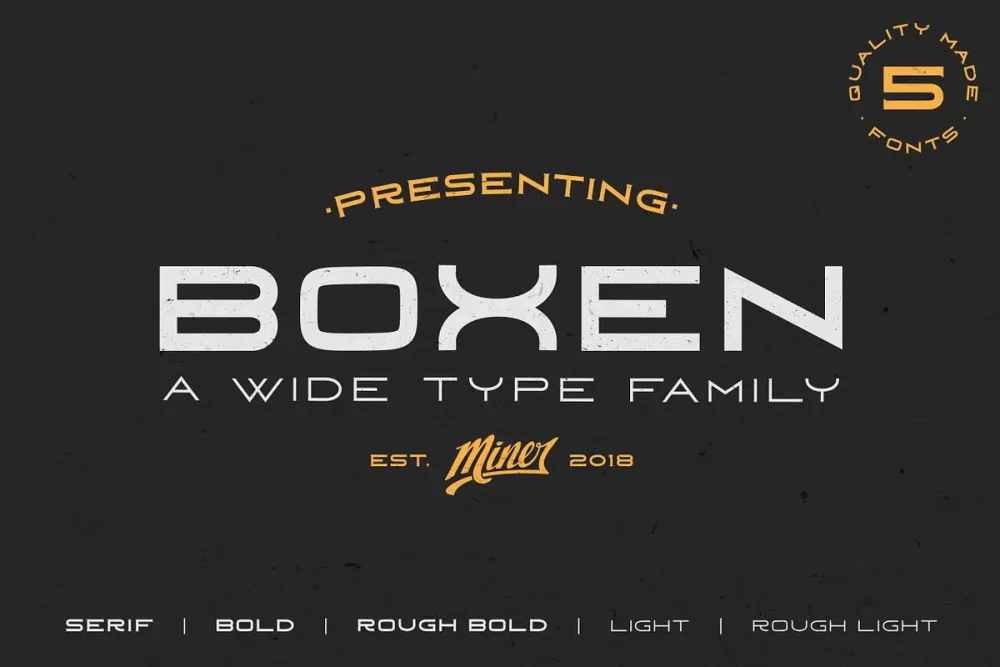
Boxen Font is a wide type family. Every letter has been refined to give you the finest wide font on the market. Boxen works well for modern logotypes, while Boxen Serif has a more vintage vibe. The Boxen Rough fonts have an organic feel that helps bring a handcrafted element to your work. The two textures included in this pack add an extra element depth to your designs